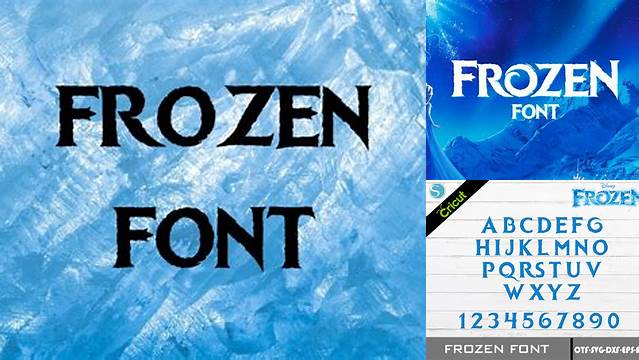
Hey guys! Are you looking to add a touch of icy magic to your designs? You've come to the right place! Today, we're diving deep into the world of frozen fonts and how you can snag them for free. Whether you're working on a winter-themed party invite, a cool logo, or just want to add a frosty feel to your text, we've got you covered. Let's explore the coolest frozen fonts available for free download and how to use them.
1. Understanding Frozen Fonts
So, what exactly are frozen fonts? Well, imagine the elegant, intricate patterns of ice crystals – that's what these fonts aim to capture. They often feature sharp edges, delicate details, and a generally frosty aesthetic. Frozen fonts are perfect for projects where you want to evoke a sense of winter, magic, or cold beauty. Think winter festivals, ice cream branding, or even a cool fantasy game title. These fonts often take inspiration from the movie Frozen, so they are perfect for any project where you want to evoke that theme. The best frozen fonts will have a balance between legibility and style, making them both beautiful and functional. Free download options are widely available. Making it accessible to anyone. Keep reading to find the perfect frozen font for your next project.
2. Where to Find Free Frozen Fonts
3. Top Free Frozen Font Options
Okay, let’s get to the good stuff – some specific free frozen font options you can download right now! Look for fonts with names that hint at ice, snow, or winter. Keep an eye out for fonts that have sharp, angular designs or incorporate ice crystal-like details. Some fonts may even feature dripping icicles or frosty textures. One great option is "Ice Kingdom," a font that mimics the look of ice shards. Another is "Winter Wonderland," which has a more whimsical, playful feel. And don't forget to check out fonts like "Frostbite" or "Glacier," which offer a more stark and dramatic look. With so many awesome free frozen fonts out there, you’re sure to find the perfect one for your project. Always be sure that you are getting a free download of the font.
5. Using Frozen Fonts in Design Projects
Now that you have your frozen font installed, let's talk about how to use it effectively in your design projects. Frozen fonts are great for headlines, titles, and short bursts of text. Because of their intricate details, they might not be the best choice for large blocks of body text. Consider using them sparingly to create a dramatic effect. Pair your frozen font with complementary colors like icy blues, silvers, and whites to enhance the wintery feel. Also, think about adding design elements like snowflakes, icicles, or frosty textures to complete the look. With a little creativity, you can use frozen fonts to create stunning designs that capture the magic of winter.
6. Frozen Font for Logos
Using a frozen font for a logo can give your brand a unique and memorable identity, especially if your business is related to winter, ice, or anything with a cool or magical feel. However, it's crucial to choose a frozen font that is legible and scalable, ensuring it looks good both on a business card and a large banner. Keep the design simple and avoid overly decorative fonts that might clutter the logo. Consider the overall message you want to convey: Is it playful and whimsical, or serious and sophisticated? Pick a frozen font that aligns with your brand’s personality. With the right choice, a frozen font can make your logo stand out and leave a lasting impression. Don’t forget you can get a free download of many amazing logo frozen fonts.
7. Frozen Font for Invitations
Planning a winter-themed party or event? A frozen font can add a touch of elegance and charm to your invitations. Whether it's a winter wedding, a holiday gala, or a Frozen-themed birthday party, using a frozen font can set the perfect tone. Opt for fonts that are easy to read but still have that icy, whimsical feel. Pair the font with winter-themed graphics like snowflakes, snow-covered trees, or ice crystals to create a cohesive design. Use colors like icy blue, silver, and white to enhance the winter wonderland effect. With the right frozen font, your invitations will be sure to impress your guests and get them excited for your event. And remember, there are plenty of free download options available!
8. Frozen Font in Photoshop
Photoshop is a fantastic tool for working with frozen fonts. You can easily add effects like drop shadows, glows, and textures to further enhance the frosty look. Experiment with different layer styles and blending modes to create unique and eye-catching designs. Try adding a subtle gradient overlay to give your frozen font a more three-dimensional appearance. You can also use Photoshop’s filters to add realistic ice and snow effects. Remember to adjust the font size and spacing to ensure it looks good in your overall design. With Photoshop, the possibilities are endless when it comes to creating stunning winter-themed graphics with frozen fonts.
9. Frozen Font in Illustrator
Illustrator is another great option for working with frozen fonts, especially if you need to create scalable vector graphics. You can easily customize the font’s appearance by adjusting the stroke width, adding fills, and applying effects. Illustrator’s vector-based nature allows you to resize the font without losing quality, making it perfect for logos and other designs that need to be used at various sizes. Experiment with different gradients and patterns to create unique and eye-catching effects. You can also use Illustrator’s pathfinder tools to create custom shapes and designs that incorporate the frozen font. With Illustrator, you have a lot of control over the final look of your frozen font.
10. Frozen Font for Social Media Graphics
If you’re looking to add a wintery touch to your social media graphics, a frozen font can be a great choice. Use it to create eye-catching headlines, captions, and banners that stand out in the feed. Choose a font that is easy to read on small screens and that aligns with your brand’s overall aesthetic. Pair the frozen font with high-quality images and graphics that evoke a sense of winter and magic. Consider using colors that complement the font and create a cohesive look. Whether you’re promoting a winter sale, announcing a holiday event, or simply sharing a seasonal greeting, a frozen font can help you capture the attention of your audience and create a memorable impression. Many of these options have a free download available for you.
11. Pairing Frozen Fonts with Other Fonts
Pairing your frozen font with other fonts can create a visually appealing and balanced design. Since frozen fonts are often decorative, it’s best to pair them with a simpler, more legible font for body text. A classic sans-serif font like Arial or Helvetica can provide a nice contrast to the intricate details of the frozen font. Alternatively, you could use a clean serif font like Times New Roman or Garamond for a more elegant look. The key is to choose a font that doesn’t compete with the frozen font but rather complements it. Experiment with different font combinations until you find one that works well for your project. With the right pairing, your frozen font will truly shine.
12. Commercial Use of Free Frozen Fonts
Before using a free frozen font for commercial purposes, it’s crucial to check the font’s license agreement. Some fonts are free for personal use only, while others allow commercial use. Make sure you understand the terms of the license to avoid any legal issues. If the font is free for personal use only, you may need to purchase a commercial license to use it in your business projects. Always download fonts from reputable sources to ensure they are safe and legal to use. When in doubt, it’s always best to err on the side of caution and contact the font’s creator to clarify the licensing terms. Protecting yourself with the free download is important when using these resources.
13. Creating Your Own Frozen Font
If you’re feeling creative, you can even try creating your own frozen font! There are several font editing software programs available that allow you to design your own unique fonts. You can start by sketching out your ideas on paper and then use the software to digitize your designs. Experiment with different shapes, lines, and textures to create a font that captures the essence of ice and winter. Creating your own frozen font can be a fun and rewarding project that allows you to express your creativity and add a personal touch to your designs. Plus, it’s a great way to learn about typography and font design. Finding a free download for editing software can be a challenge, so make sure you do your research.
14. Frozen Font Generators
If you're not ready to design your own font from scratch, you can use a frozen font generator to create custom text with a frosty effect. These generators allow you to type in your text and then apply various styles and effects to make it look like it's made of ice. While the results may not be as polished as a professionally designed font, they can be a quick and easy way to add a wintery touch to your projects. Keep in mind that the quality of the generated font may vary depending on the tool you use. Experiment with different generators to find one that produces results that you're happy with. Many of these options have a free download or are browser-based, so they're easy to use.
15. Frozen Font Inspiration
Looking for inspiration for your frozen font designs? Check out winter-themed movies, books, and artwork for ideas. Pay attention to the shapes, textures, and colors that evoke a sense of ice and winter. Study different types of ice formations, such as icicles, snowflakes, and glaciers, to get ideas for your font’s design. You can also find inspiration online by browsing through websites and blogs that feature winter-themed designs. Don’t be afraid to experiment with different styles and techniques to create a frozen font that is unique and eye-catching. Finding the right inspiration will help you take your design to the next level. And remember, inspiration can strike from anywhere!
16. Best Software for Frozen Font Design
When it comes to designing frozen fonts, having the right software can make all the difference. Adobe Illustrator is a popular choice for creating vector-based fonts, offering precise control and scalability. Glyphs is another excellent option, specifically designed for font creation with advanced features. For beginners, FontForge provides a more accessible, open-source solution. Consider your skill level and project requirements when choosing software. Experiment with trial versions to see which program best fits your workflow. With the right tools, you can bring your icy font visions to life. Be sure to check if there's a free download available for a trial.
17. Mobile Apps for Frozen Font Creation
Creating frozen fonts isn't limited to desktop software; mobile apps offer on-the-go design capabilities. iFontMaker on iOS allows you to draw fonts directly on your iPad, while Fonty provides a user-friendly interface for Android users. These apps offer a simplified approach to font design, perfect for quick mockups and creative exploration. While they might lack the advanced features of desktop software, mobile apps provide convenience and accessibility for designing frozen fonts anywhere, anytime. Explore different apps to find one that suits your mobile design needs. Don't forget to check for free download options or trial periods.
18. Optimizing Frozen Fonts for Web Use
Using frozen fonts on websites can add a unique touch, but optimization is crucial for performance. Convert your font files to web-friendly formats like WOFF and WOFF2 to reduce file size and improve loading times. Use CSS font-display properties to control how the font is rendered while it loads. Consider using font subsetting to include only the characters needed for your website, further reducing file size. Test your website on different devices and browsers to ensure the frozen font displays correctly. Properly optimized frozen fonts enhance user experience without sacrificing site speed. Most browsers will automatically handle the free download of these font types.
19. Frozen Font Color Palettes
Choosing the right color palette enhances the impact of your frozen font. Icy blues, silvers, and whites evoke a classic winter aesthetic. Consider using contrasting colors like deep purples or blacks for a dramatic effect. Gradient colors can add depth and dimension to your frozen font. Experiment with different color combinations to find one that complements your design and conveys the desired mood. Remember that color psychology plays a significant role in how your font is perceived. With the right color palette, your frozen font will truly come to life. The effects after the free download will look stunning.
20. Text Effects for Frozen Fonts
Adding text effects can further enhance the frosty appearance of your frozen font. Consider using effects like drop shadows, glows, and bevels to create depth and dimension. Experiment with textures like ice crystals or snow to add realism. Use blending modes in Photoshop or Illustrator to create unique and eye-catching effects. Remember to use these effects sparingly to avoid overwhelming the font. Subtlety can often be more effective than extravagance. With the right text effects, your frozen font will look like it's truly made of ice. A free download for brushes and textures can help you achieve this effect.
21. Legal Considerations for Free Fonts
Before using any free font, it's essential to understand the licensing terms. Many free fonts are available for personal use only, while others allow commercial use. Always check the license agreement to ensure you're complying with the terms. Some licenses may require attribution to the font designer. Be wary of fonts downloaded from untrustworthy sources, as they may contain malware or infringe on copyright. When in doubt, contact the font designer to clarify the licensing terms. Protecting yourself legally ensures you can use free fonts with confidence. The free download will often come with a text file containing the license agreement.
22. Common Mistakes When Using Frozen Fonts
Using frozen fonts effectively requires careful consideration. One common mistake is using them for large blocks of text, which can strain readability. Another is pairing them with overly complex fonts, creating visual clutter. Avoid using too many effects, which can overwhelm the font and detract from its design. Remember that frozen fonts are best used sparingly for headlines and titles. Overusing them can diminish their impact. By avoiding these common mistakes, you can ensure your frozen font designs are both visually appealing and effective. Make sure the free download is the right font for your project.
23. Advanced Techniques for Frozen Font Manipulation
For advanced users, manipulating frozen fonts offers creative possibilities. Use clipping masks in Photoshop or Illustrator to confine the font within specific shapes. Experiment with vector editing to customize the font's individual characters. Consider using 3D software to create立体立体 frozen font effects. These advanced techniques require a solid understanding of design software, but they can result in truly unique and stunning creations. Don't be afraid to push the boundaries and explore the full potential of your frozen font. Check out online tutorials to learn more. Often you can find a free download of resources like custom brushes or textures to help.
24. Frozen Fonts and Branding
Frozen fonts can be a powerful branding tool for businesses with a winter or ice-related theme. Consider using them in your logo, website, and marketing materials to create a cohesive brand identity. Ensure the font aligns with your brand's overall message and aesthetic. Remember that consistency is key when it comes to branding. Use the frozen font strategically to reinforce your brand's image and create a memorable impression. With the right frozen font, your brand can stand out and resonate with your target audience. Make sure the free download has the right license for your brand.
25. The Future of Frozen Fonts
The future of frozen fonts is likely to involve more sophisticated designs and technology. We can expect to see fonts with more intricate ice crystal patterns, realistic textures, and dynamic effects. Artificial intelligence may play a role in generating new and unique frozen fonts. As virtual and augmented reality become more prevalent, frozen fonts could be used to create immersive and interactive experiences. The possibilities are endless, and the future of frozen fonts is sure to be exciting. Keep an eye out for new developments and innovations in the field. Maybe even a free download of an AI font generator!
26. How to Test Frozen Font Readability
Before finalizing your design, it's crucial to test the readability of your frozen font. Print out your design at different sizes to see how the font looks in physical form. View your design on different devices and browsers to ensure it displays correctly. Ask for feedback from others to get an objective opinion. Pay attention to the font's spacing, kerning, and contrast. Adjust the font as needed to improve readability. A beautiful font is useless if it's difficult to read. Testing ensures your frozen font is both visually appealing and functional. Don't forget to test the free download version too!
27. Frozen Font Alternatives
If you can't find the perfect frozen font, there are alternatives to consider. Look for fonts with similar characteristics, such as sharp angles, geometric shapes, or icy textures. Consider using a regular font and adding ice effects in Photoshop or Illustrator. Experiment with different font combinations to create a unique look. Don't be afraid to think outside the box and explore different options. The goal is to achieve a similar aesthetic without relying solely on a frozen font. Sometimes, a creative workaround can be just as effective. A free download of textures or effects can also help.
28. Frozen Fonts for Video Games
Frozen fonts can add a cool, thematic element to video games, especially those set in winter or fantasy worlds. Use them for game titles, menu screens, and in-game text to enhance the immersive experience. Choose a font that is easy to read on screen and that fits the game's overall aesthetic. Consider using animation or special effects to further enhance the font's appearance. With the right frozen font, you can create a captivating and memorable gaming experience. The free download version can be a great way to test the font in your game engine.
29. Licensing for Distributing Games with Frozen Fonts
When using frozen fonts in video games, understanding the licensing is critical, especially if you plan to distribute the game commercially. Ensure the font's license allows for use in video games and covers commercial distribution. Some licenses may require attribution or prohibit certain uses. If the free download version doesn't cover your needs, consider purchasing a commercial license. Always keep a record of your font licenses for legal protection. Proper licensing ensures you can use frozen fonts in your games without any legal concerns. Always read the fine print of the free download!
30. Frozen Font Best Practices: A Summary
To wrap things up, let's recap the best practices for using frozen fonts: Choose a font that is legible and fits your project's theme. Pair it with a simpler font for body text. Use it sparingly for headlines and titles. Pay attention to color palettes and text effects. Always check the font's license before using it commercially. Test the font's readability on different devices. By following these guidelines, you can create stunning designs with frozen fonts that are both visually appealing and effective. Happy designing, guys! Enjoy your free download!